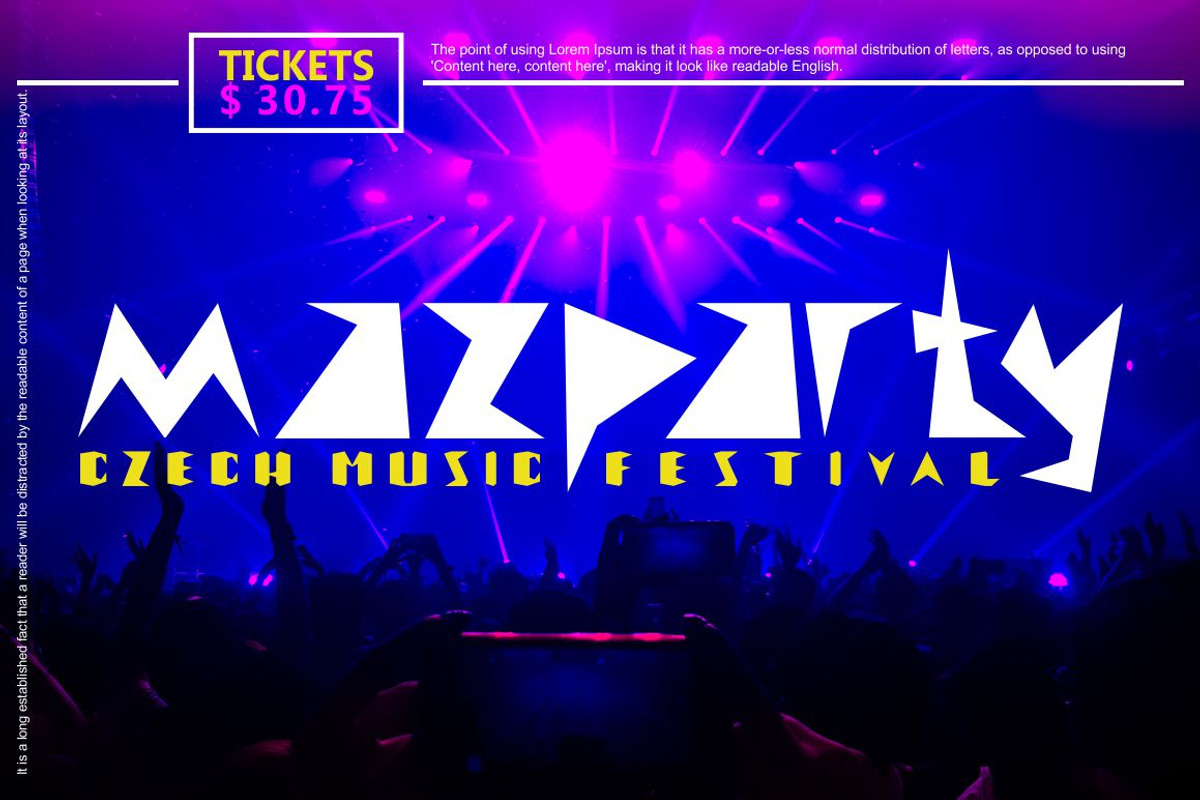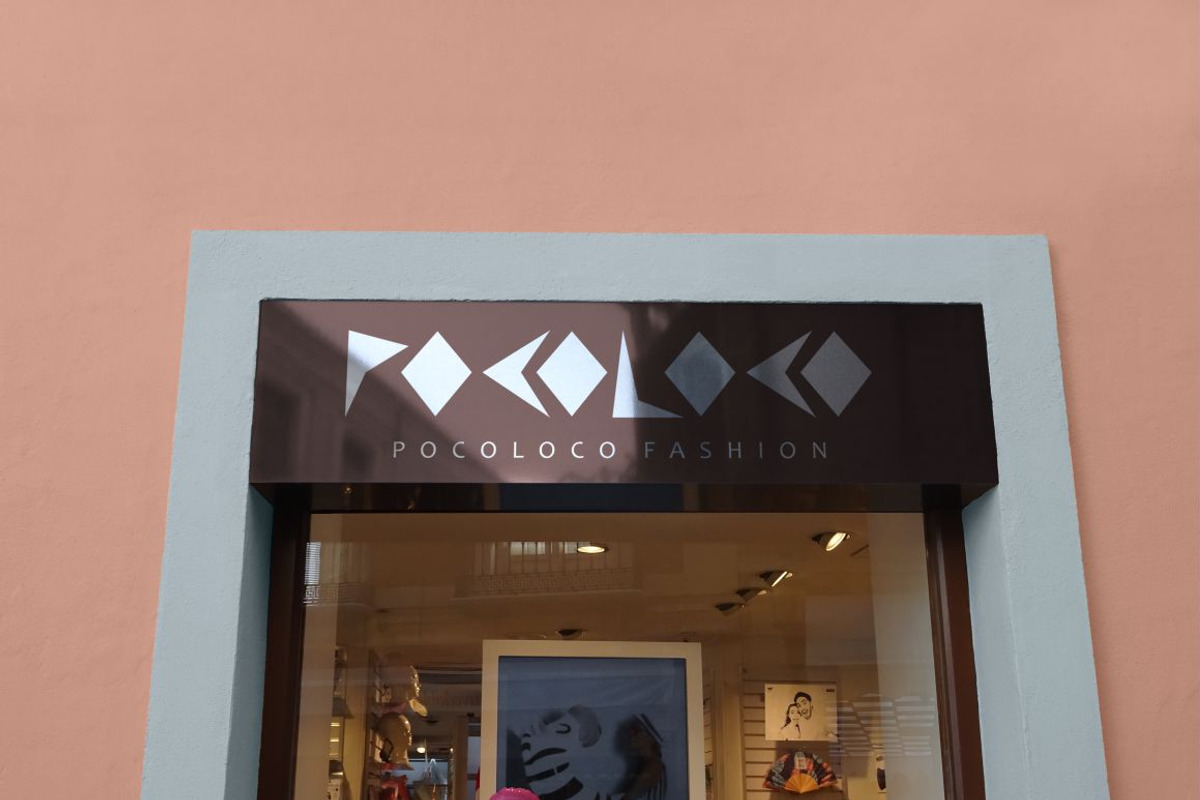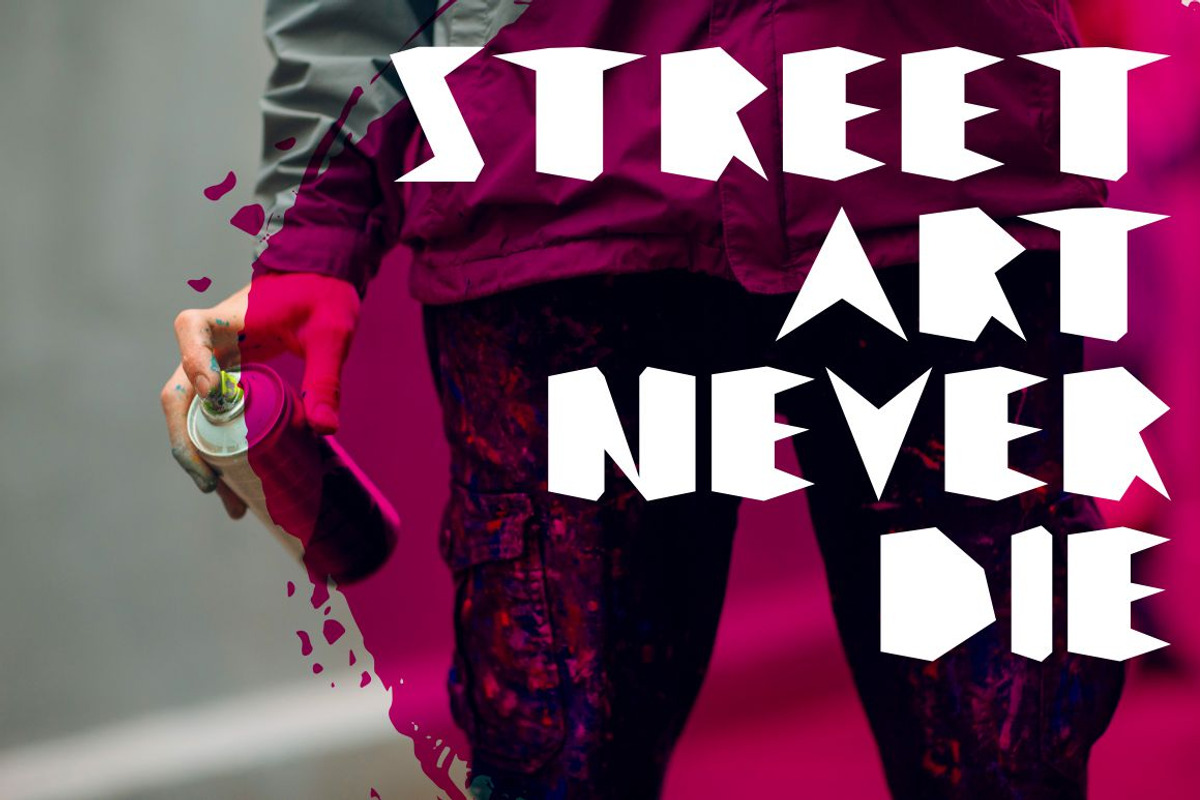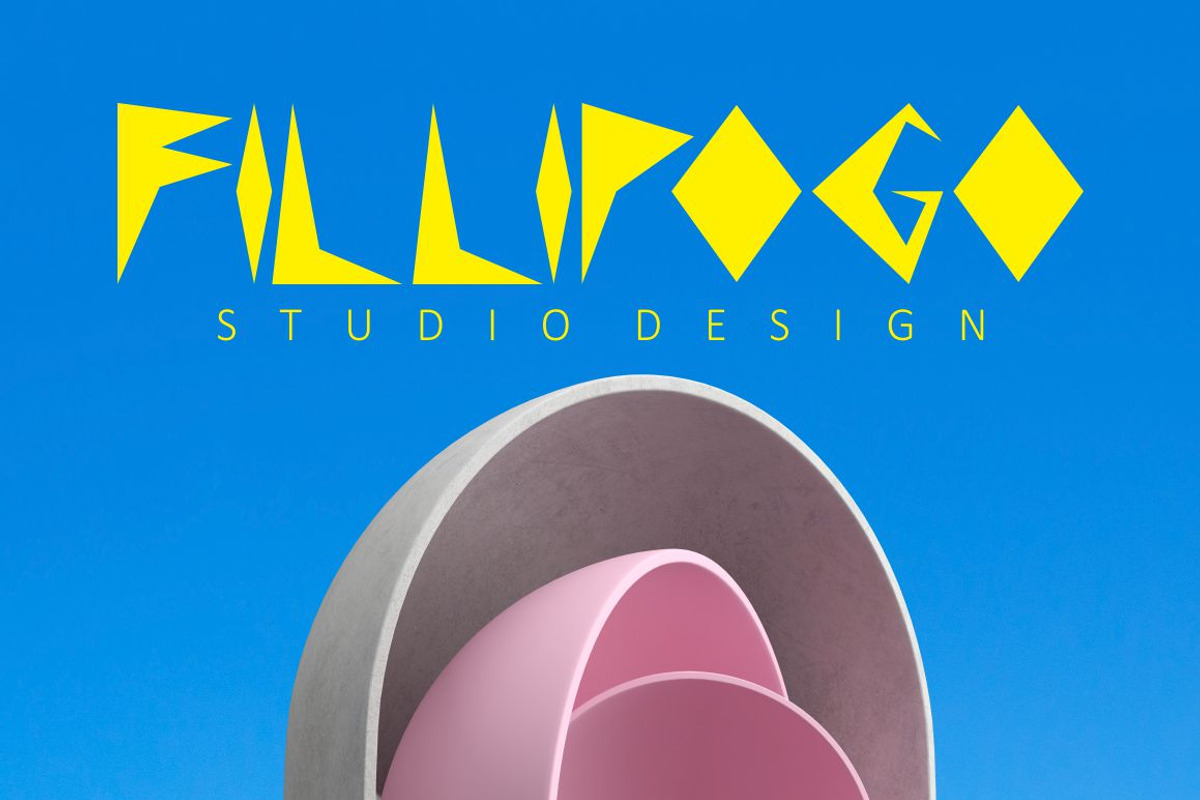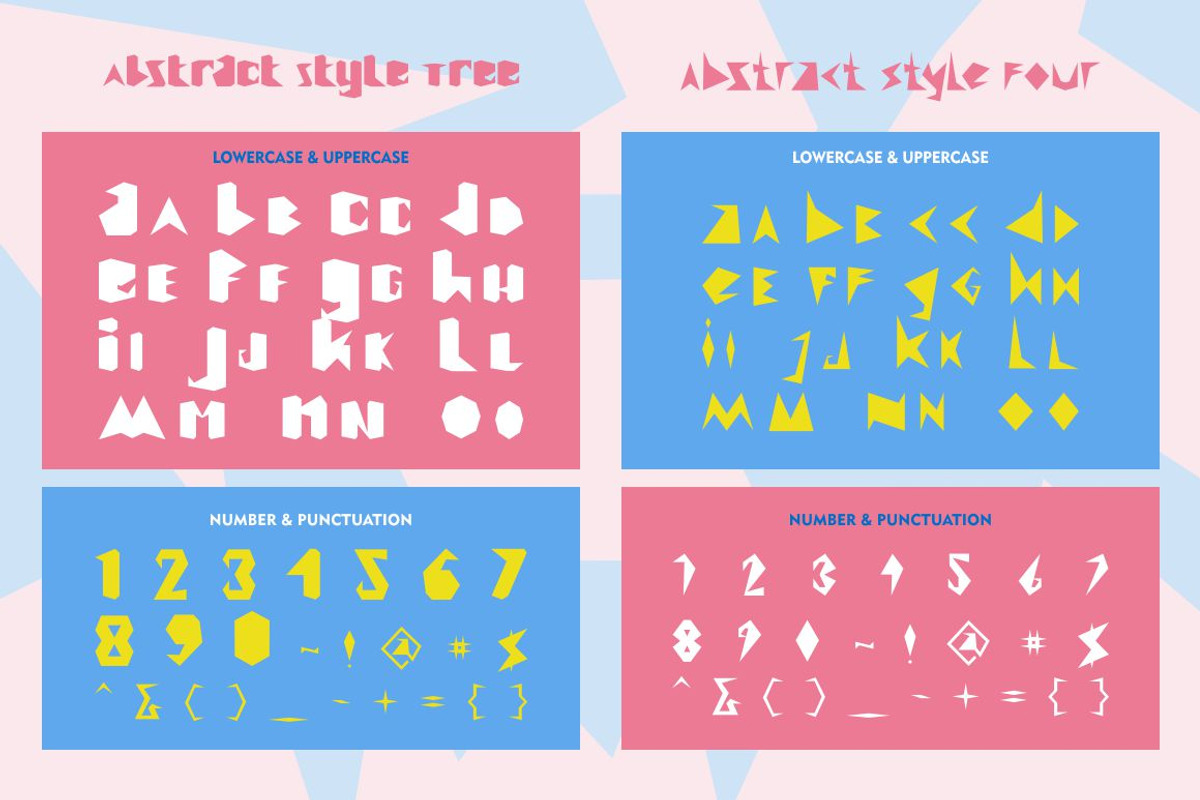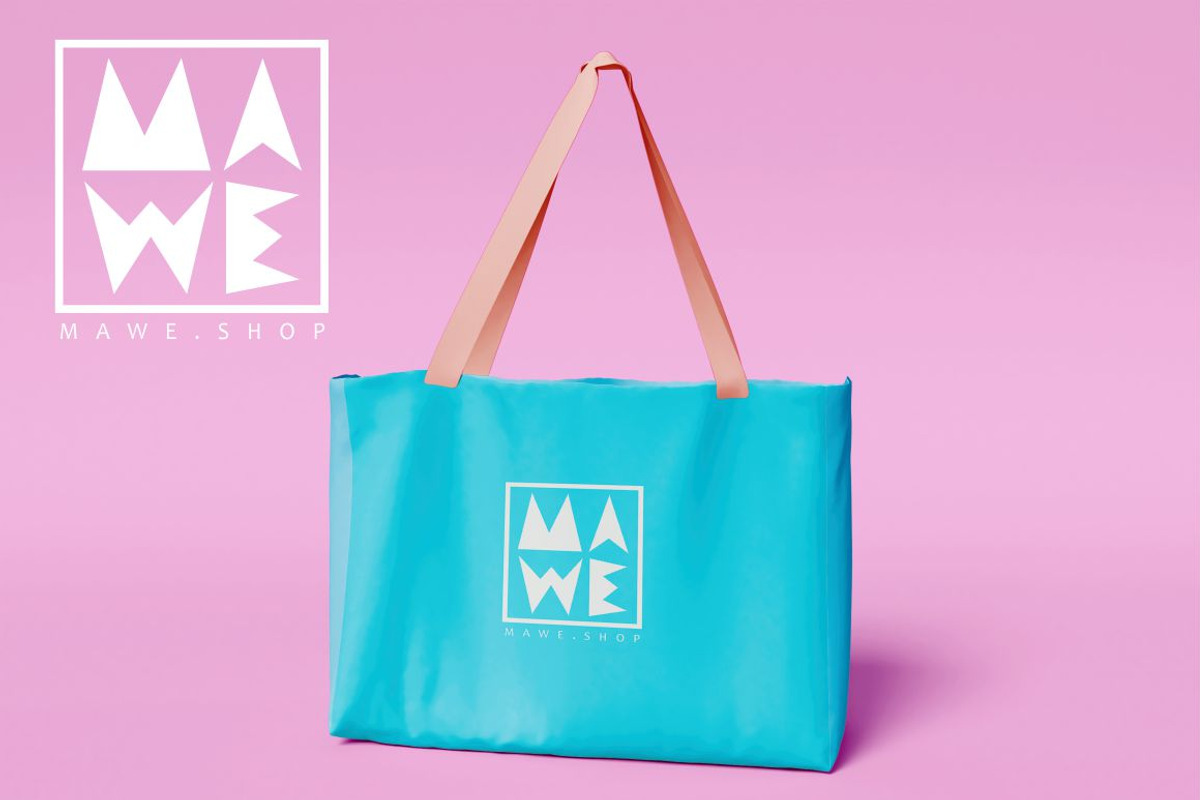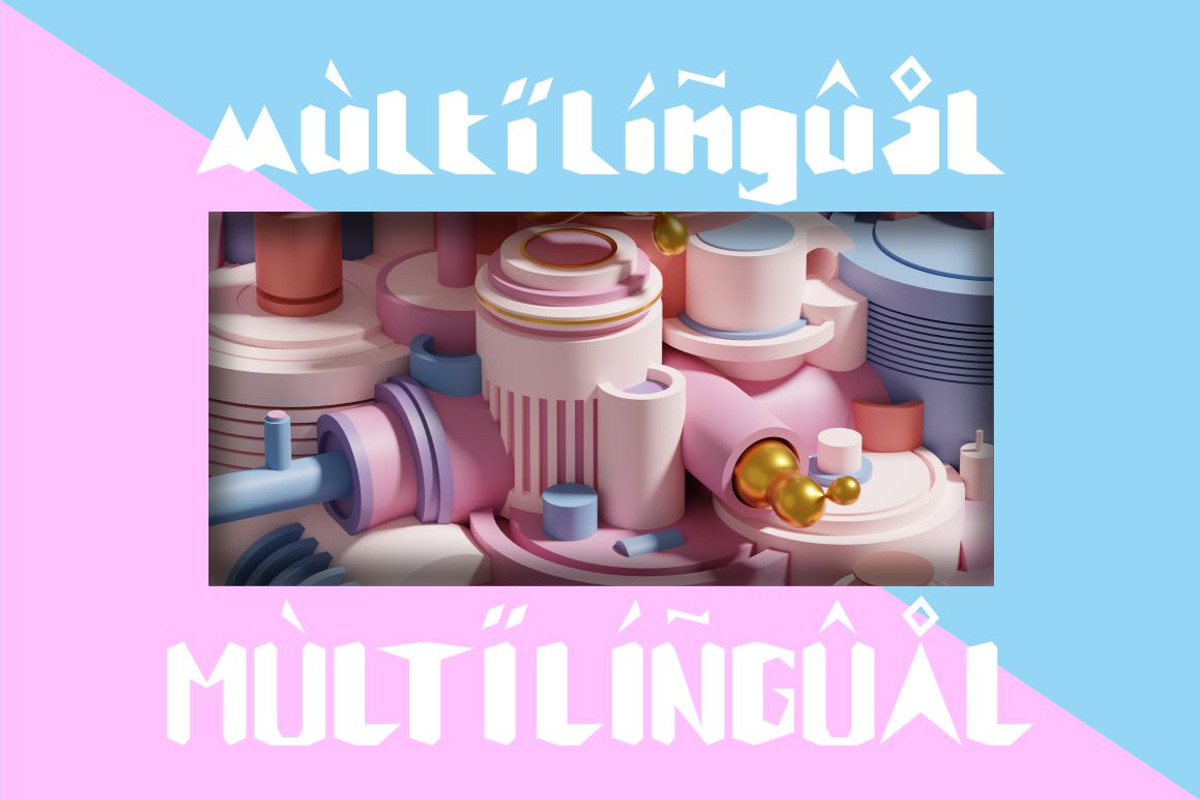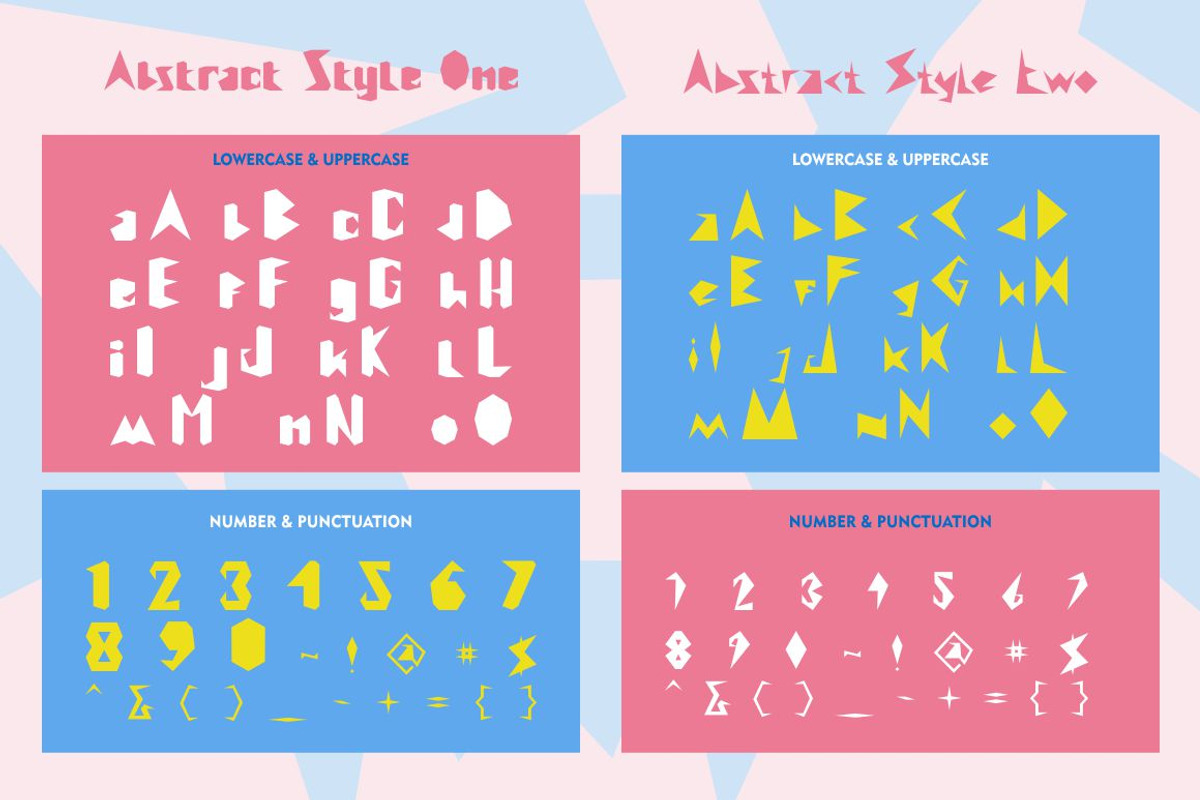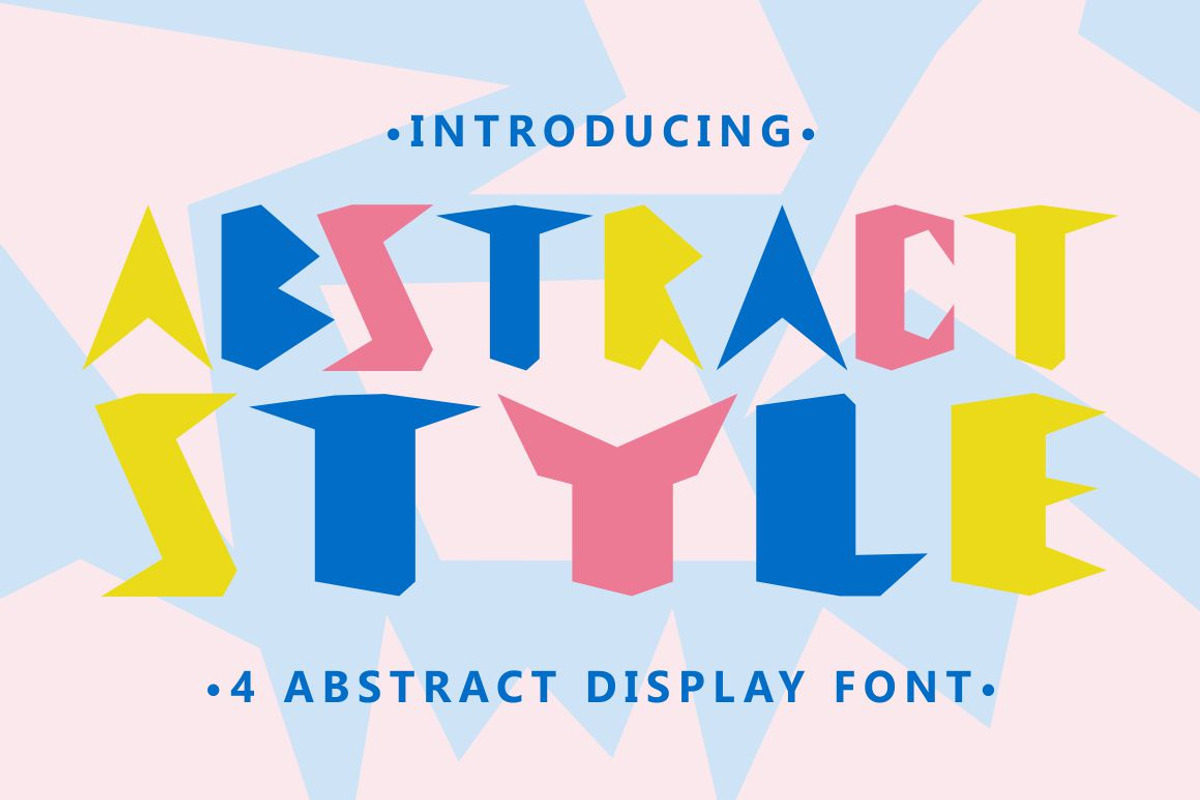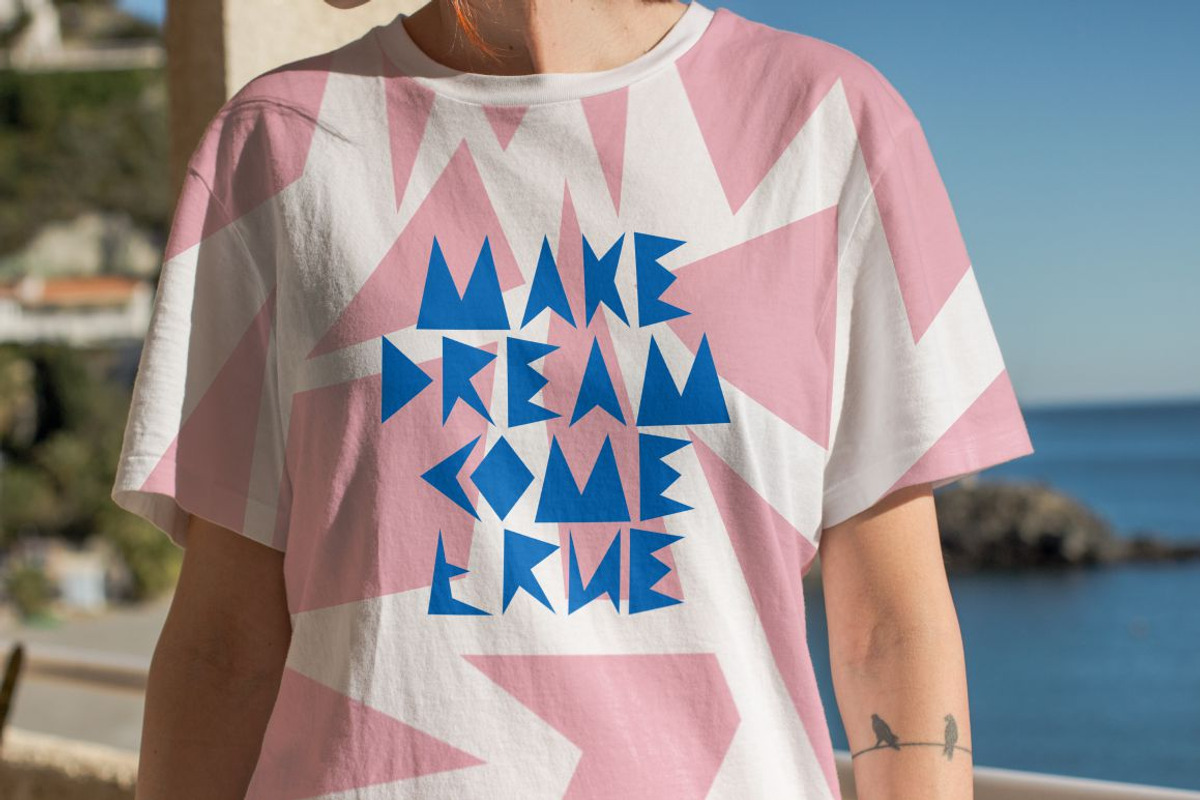
Abstract Style - 4 Abstract Display
Abstract Style
Abstract Style is a abstract display font. This font has abstract and irregular shapes, sharp corners and messy shapes that characterize it. Abstract Style would be perfect for Logo, title, logotype, cover, headline, apparel, comic, cover books, cards, posters, or anything that requires a abstract creativity!